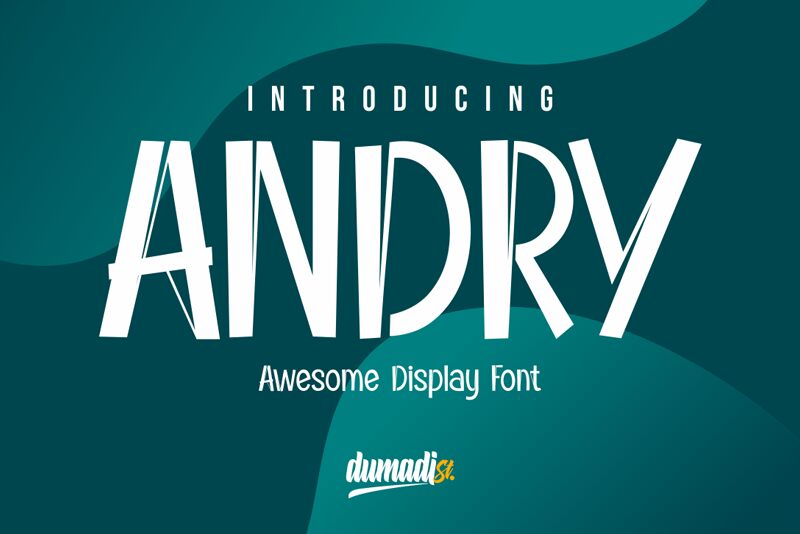
ANDRY
ANDRY is a versatile display font designed by Lettersiro in 2018. Its semi-light weight makes it perfect for projects that require an elegant touch without overpowering the design. ANDRY's unique lines and curves add a modern twist to any project, from logos to branding materials, packaging, invitations, and more. Its display typeface enables it to stand out on any platform, making it great for web designs and social media posts. Whether you're creating a sophisticated event invitation or designing a sleek website, ANDRY's semi-light font style will bring your ideas to life with its effortless charm.